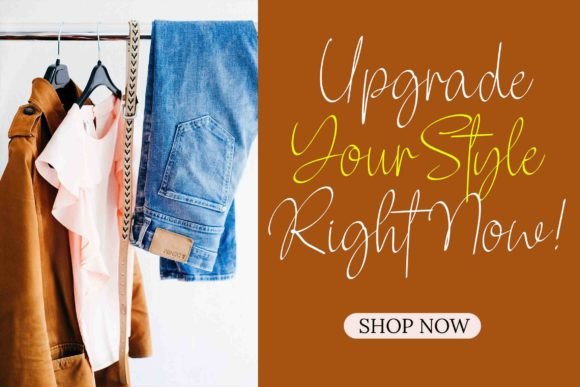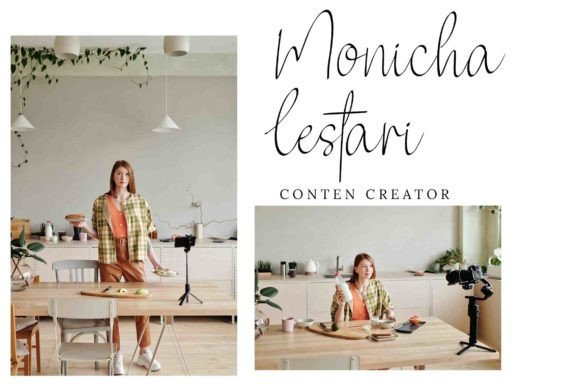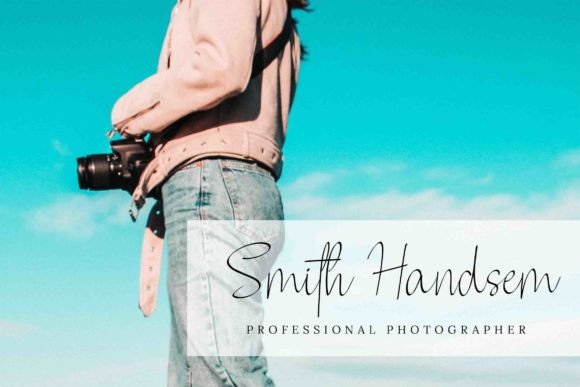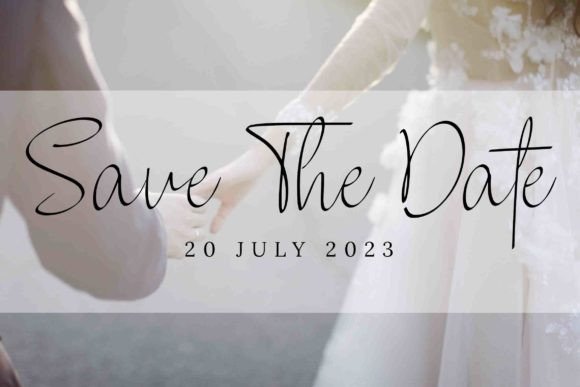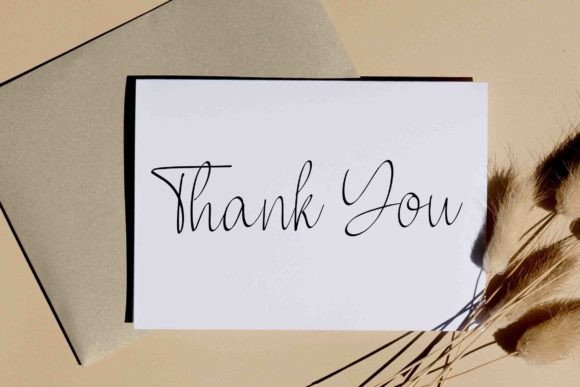
Introduction to Screenshot Font
Screenshot is a very cute and elegant handwritten font with a simple touch at each end of the letters.
This font will make your creative ideas more aesthetic It is suitable for making social media posts, weddings, branding, watermark photography and many more.
Key Features of Screenshot Font